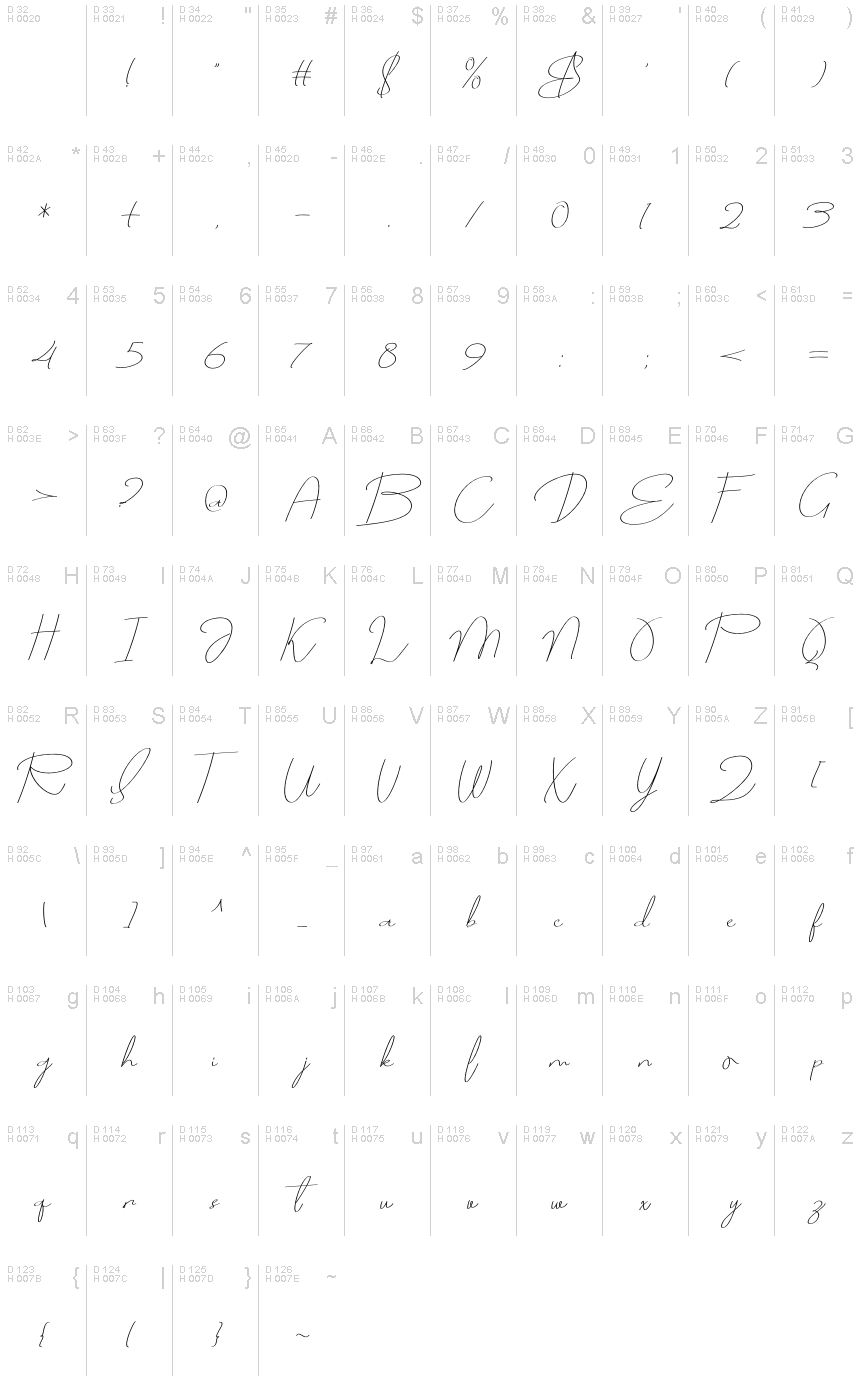
MOXA Bestine Script
Moxa Bestine Script, a captivating handwritten font crafted by ToniStudio, exudes an effortless elegance that captivates the eye. This light, flowing script boasts a delicate, organic charm, seamlessly blending graceful curves and subtle variations that lend a sense of authenticity and character to any design. The Moxa Bestine Script's alluring aesthetic invokes a warm, inviting atmosphere, making it a natural choice for a wide range of creative applications.
This versatile font shines in branding and packaging design, adding a touch of refined sophistication to logos, labels, and product packaging. Its fluid, handwritten style also lends itself beautifully to stationery, wedding suites, and editorial layouts, where its expressive nature can truly shine. Whether you're seeking to cultivate a sense of artisanal charm or convey a personalized, heartfelt message, the Moxa Bestine Script by ToniStudio is a captivating choice that will elevate your creative vision.